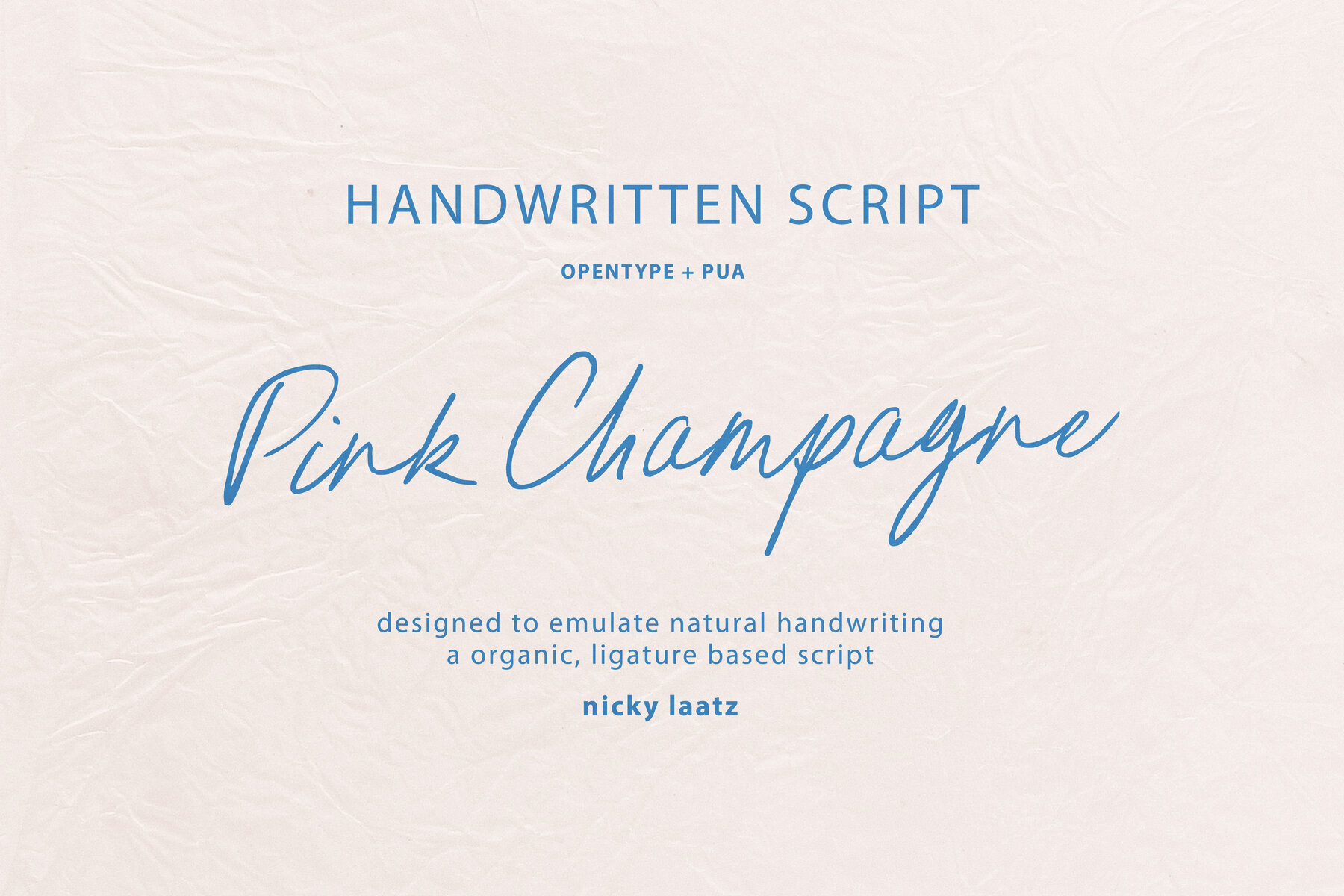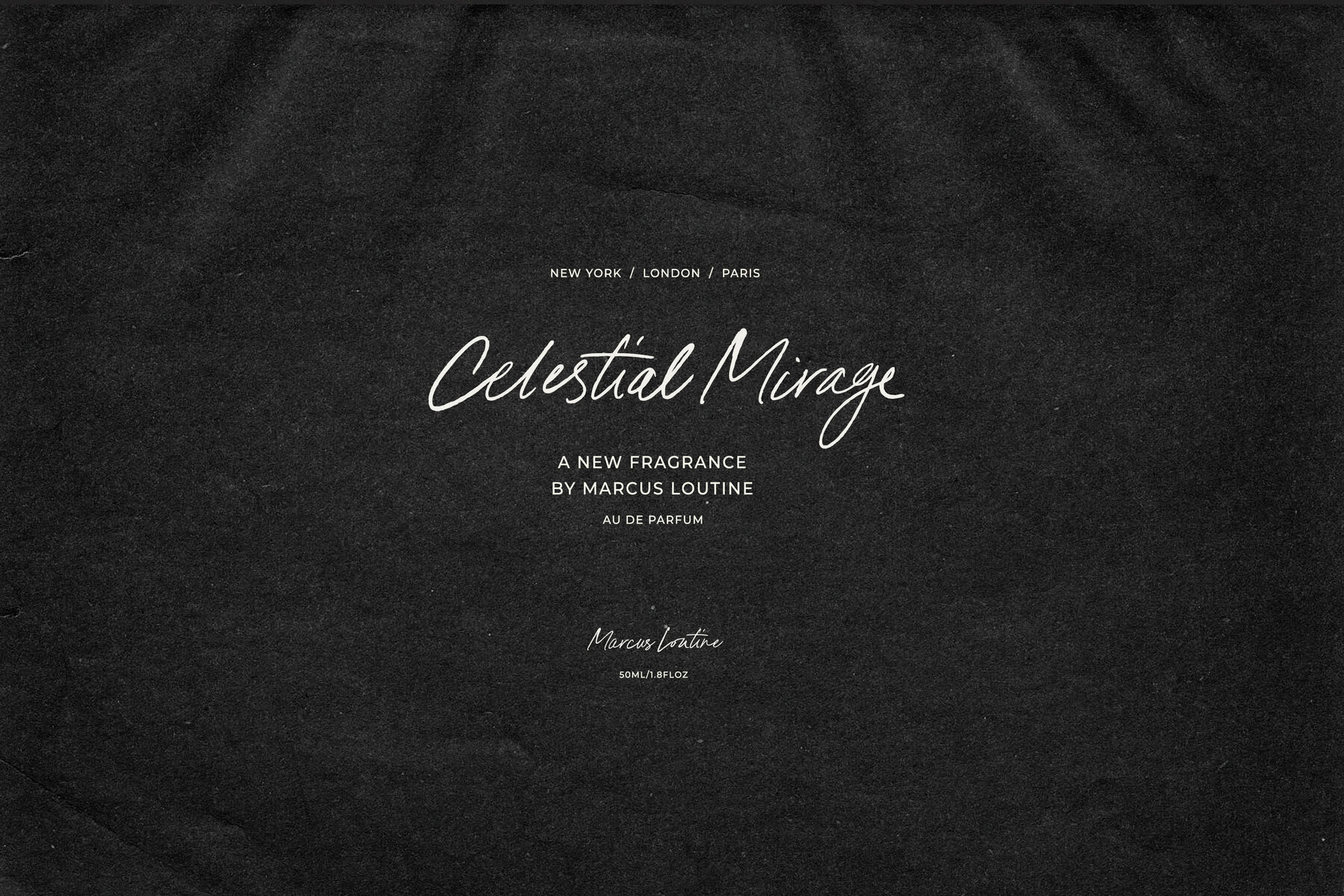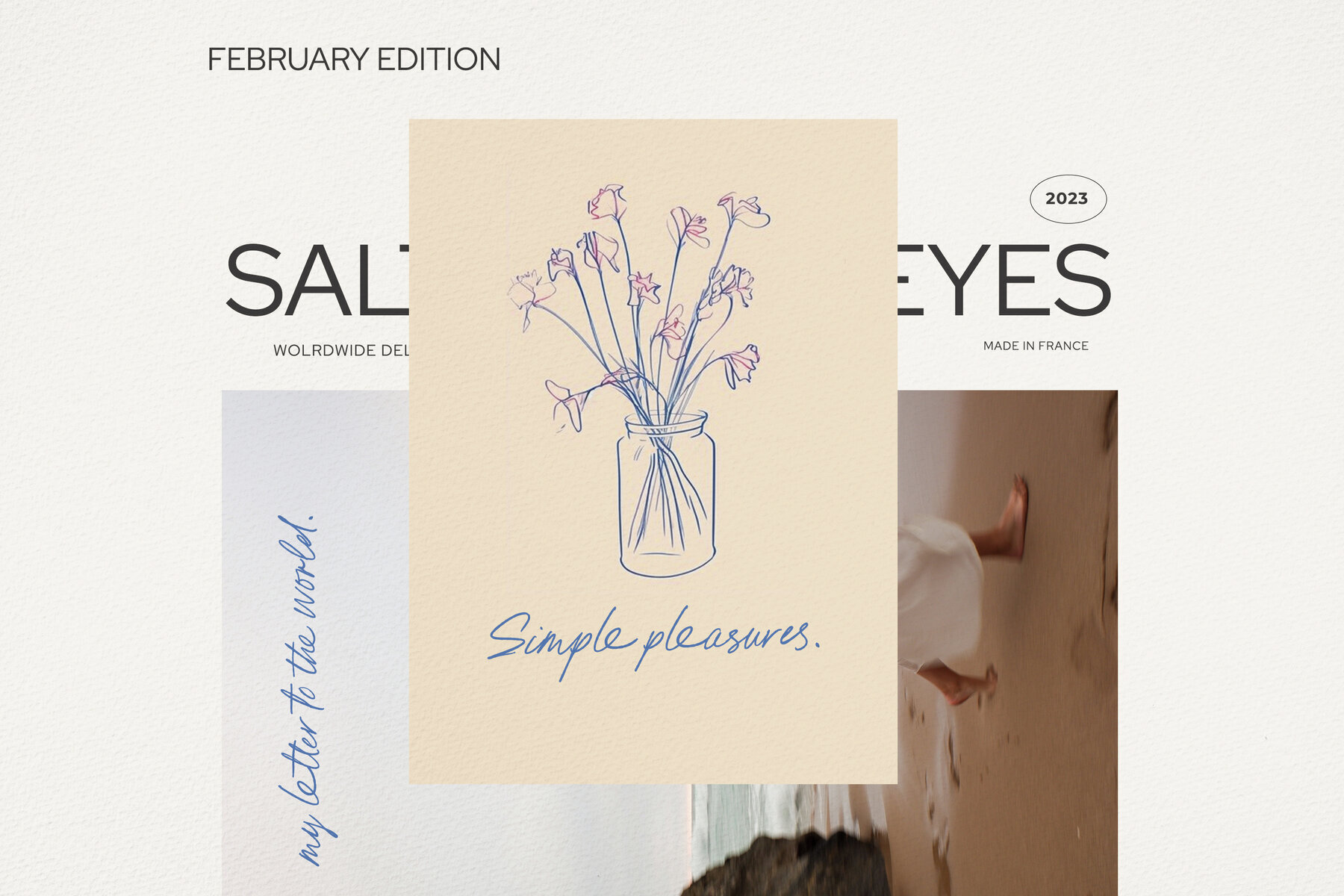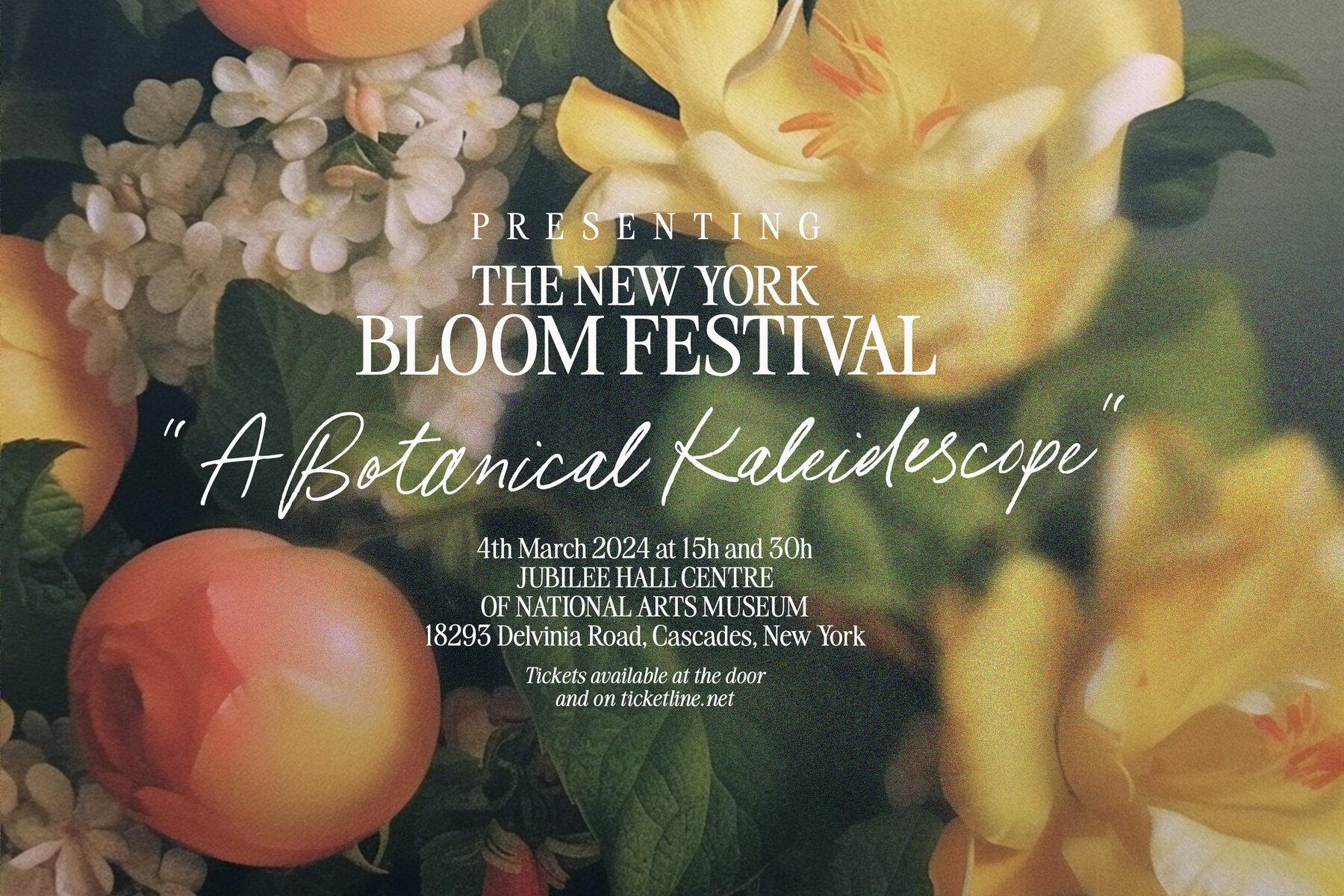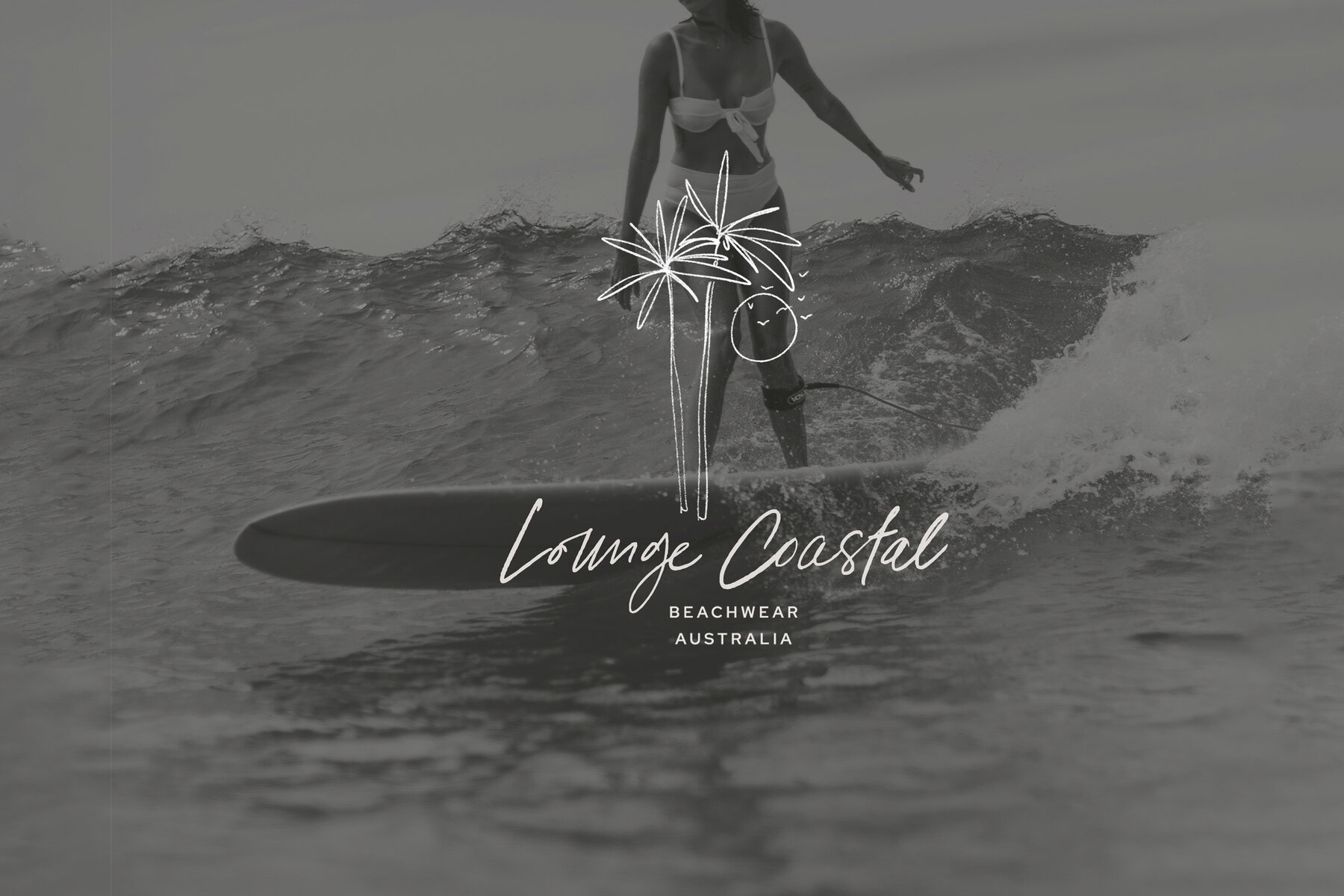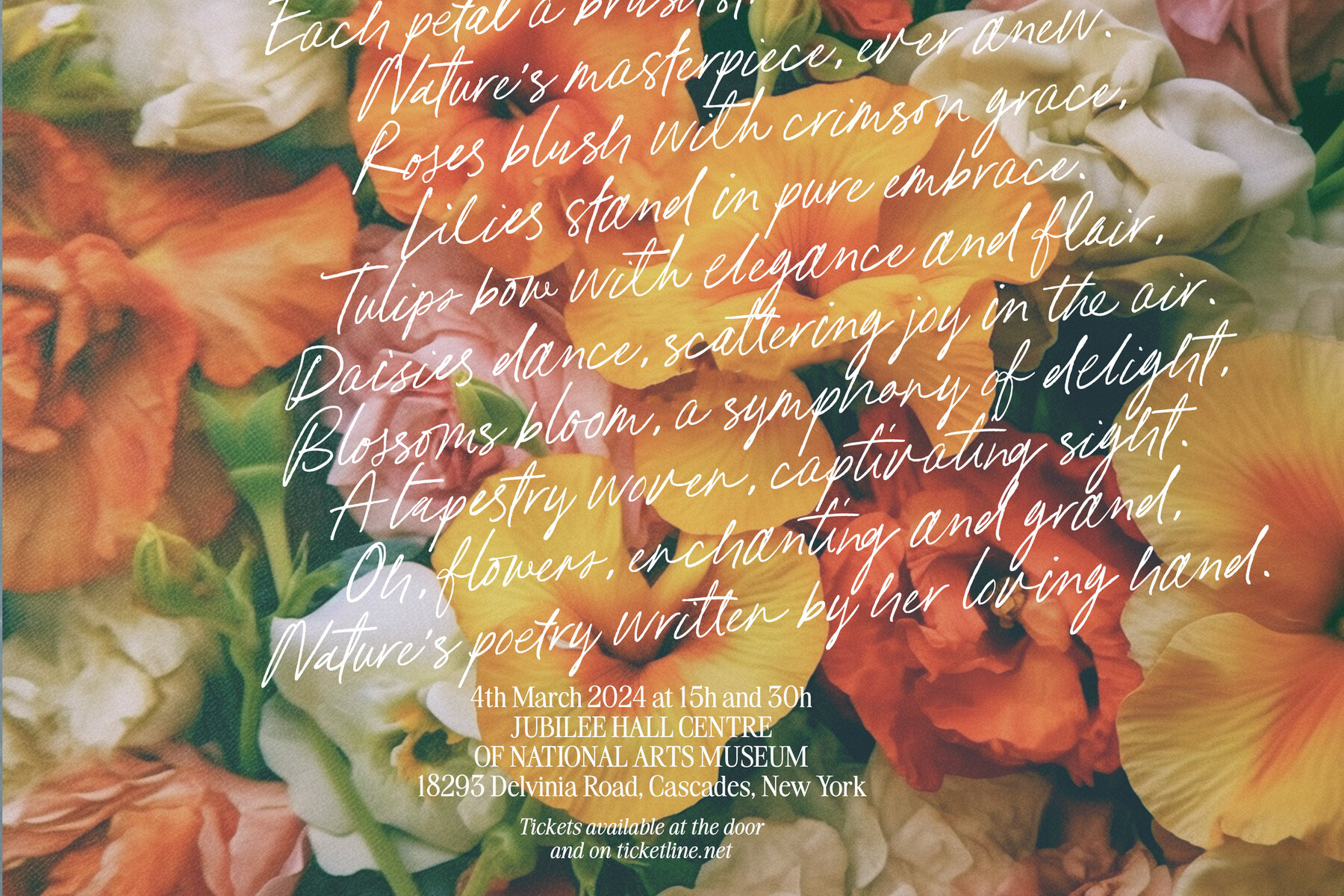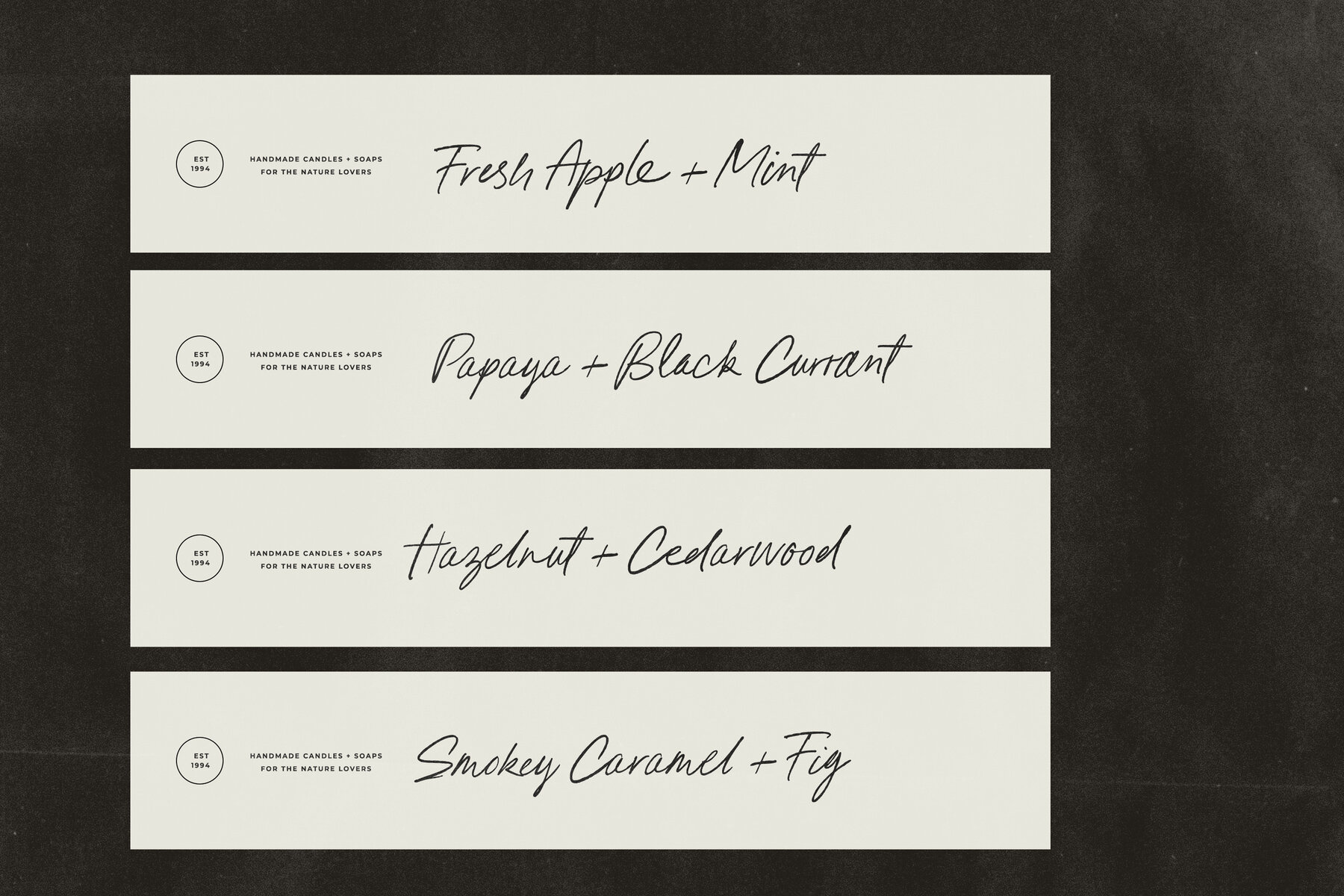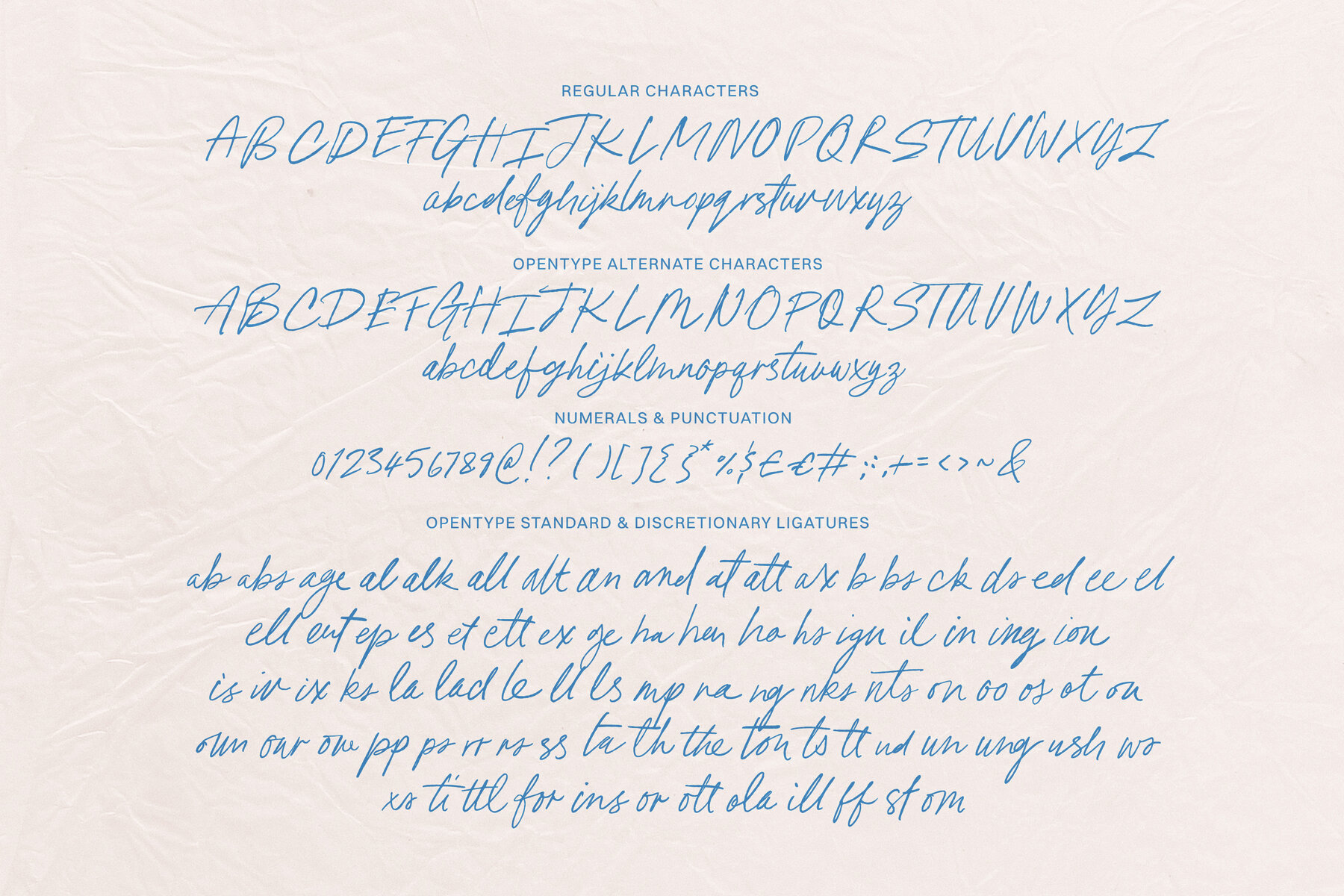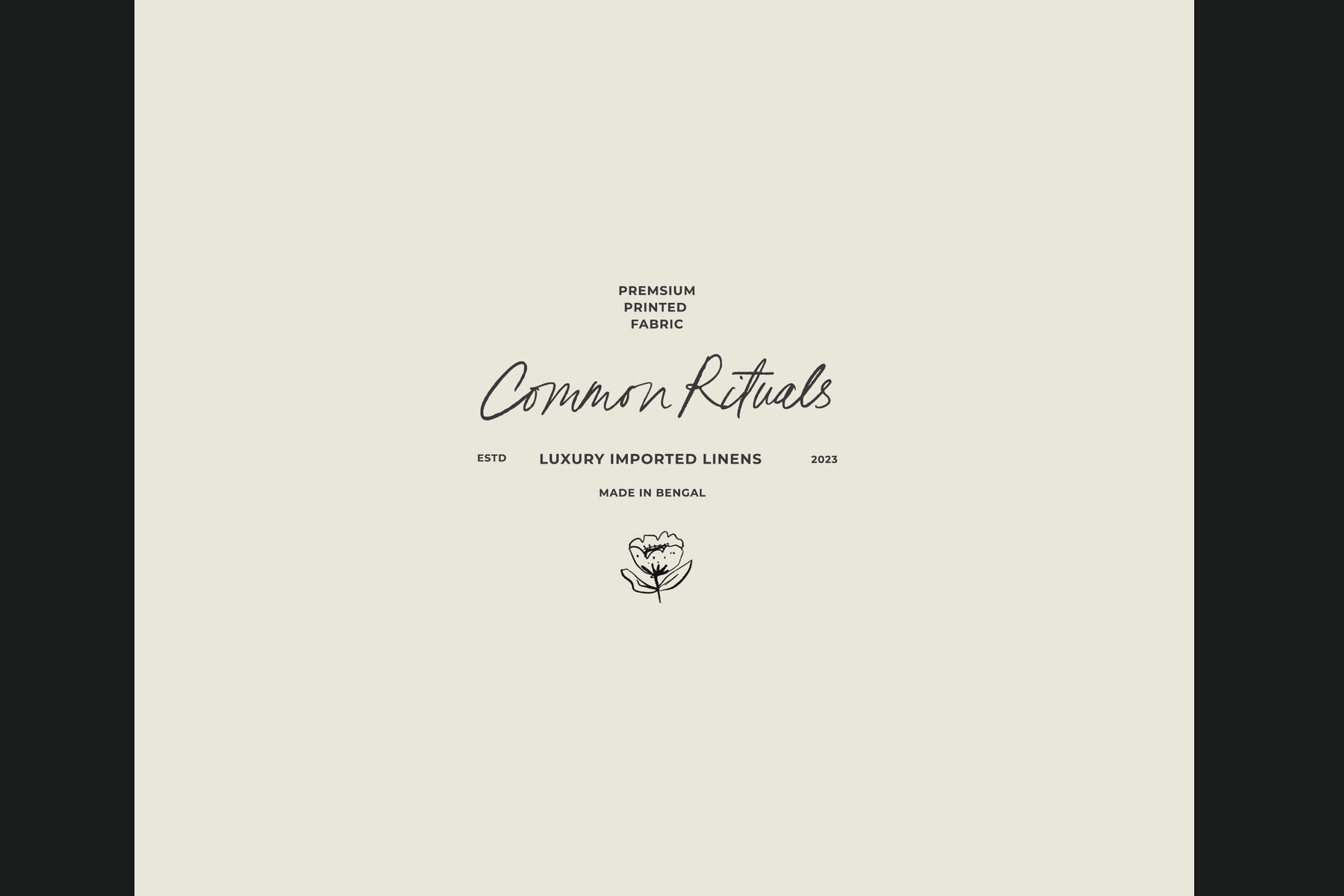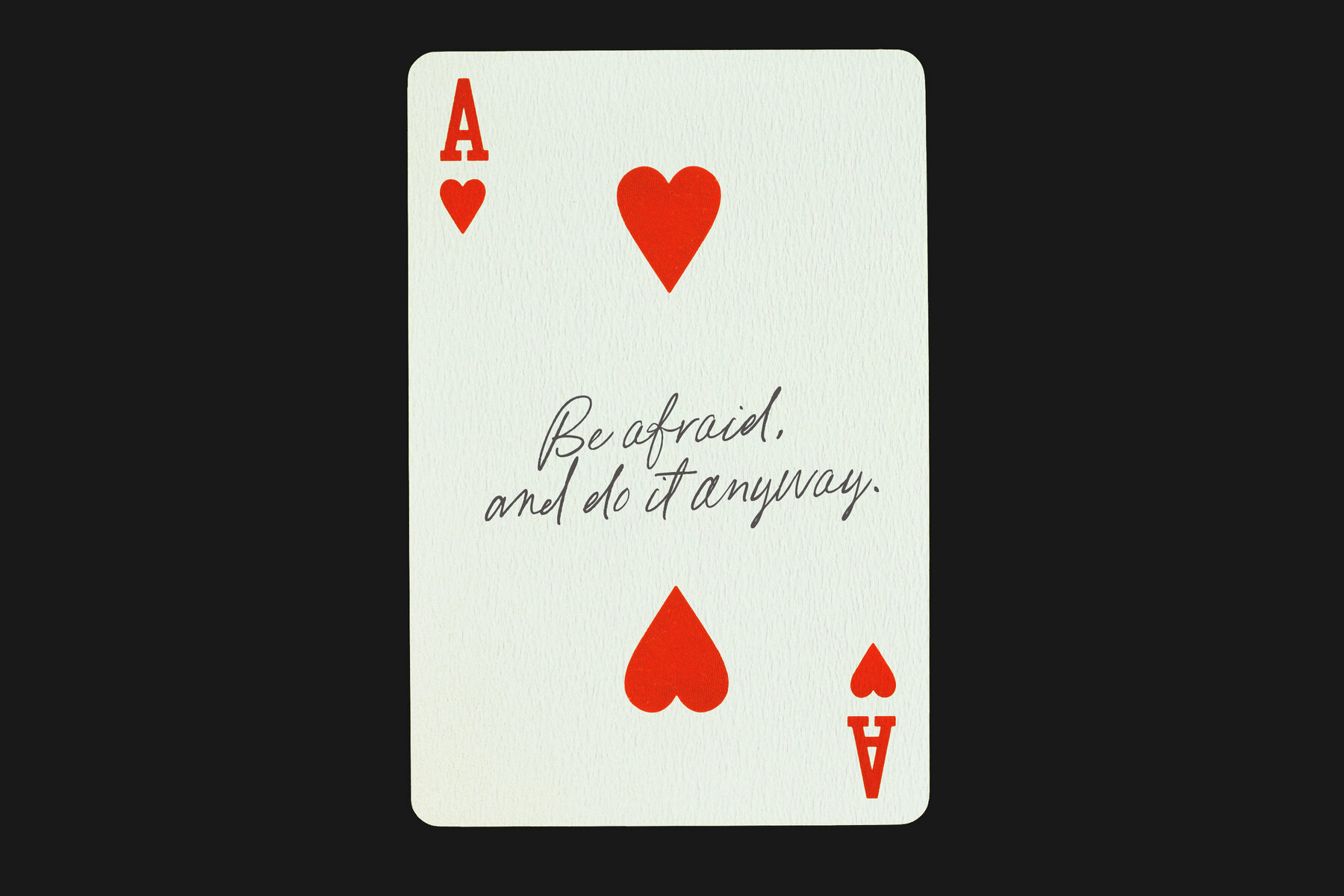
Pink Champagne Font
Pink Champagne is designed to emulate natural handwriting, with inky, wobbly edges to add to it's authenticity - perfect for adding that natural-looking handwritten touch to your designs. She also has a large selection of Opentype ligatures to make her appear even more natural and free flowing. Make sure you have your Ligatures turned on if you'd like to activate them, or turn pairs on and off as you'd like them in your type settings. Pair her up with a strong Sans-serif or Serif, and you have a match made in heaven. On her own, she's perfect for notes, labels, greeting cards, wedding invites, quotes, organic themes and so much more. For non-opentype users, such as Canva users Pink Champagne has been PUA encoded, so with a little extra elbow grease you can use it and all its extra letters without special software. A help file is included for Canva users. For other non-opentype users, use your Fontbook ( mac) or Charmap( windows) to copy and paste the extra ligatures and characters ontp your type line. Software Requirements: No special software is required to access the extra characters (help file included for Canva users) To access Opentype ligatures (without using PUA encoding) you will need an App that supports extended opentype features such as Photoshop, Illustrator, Indesign etc.